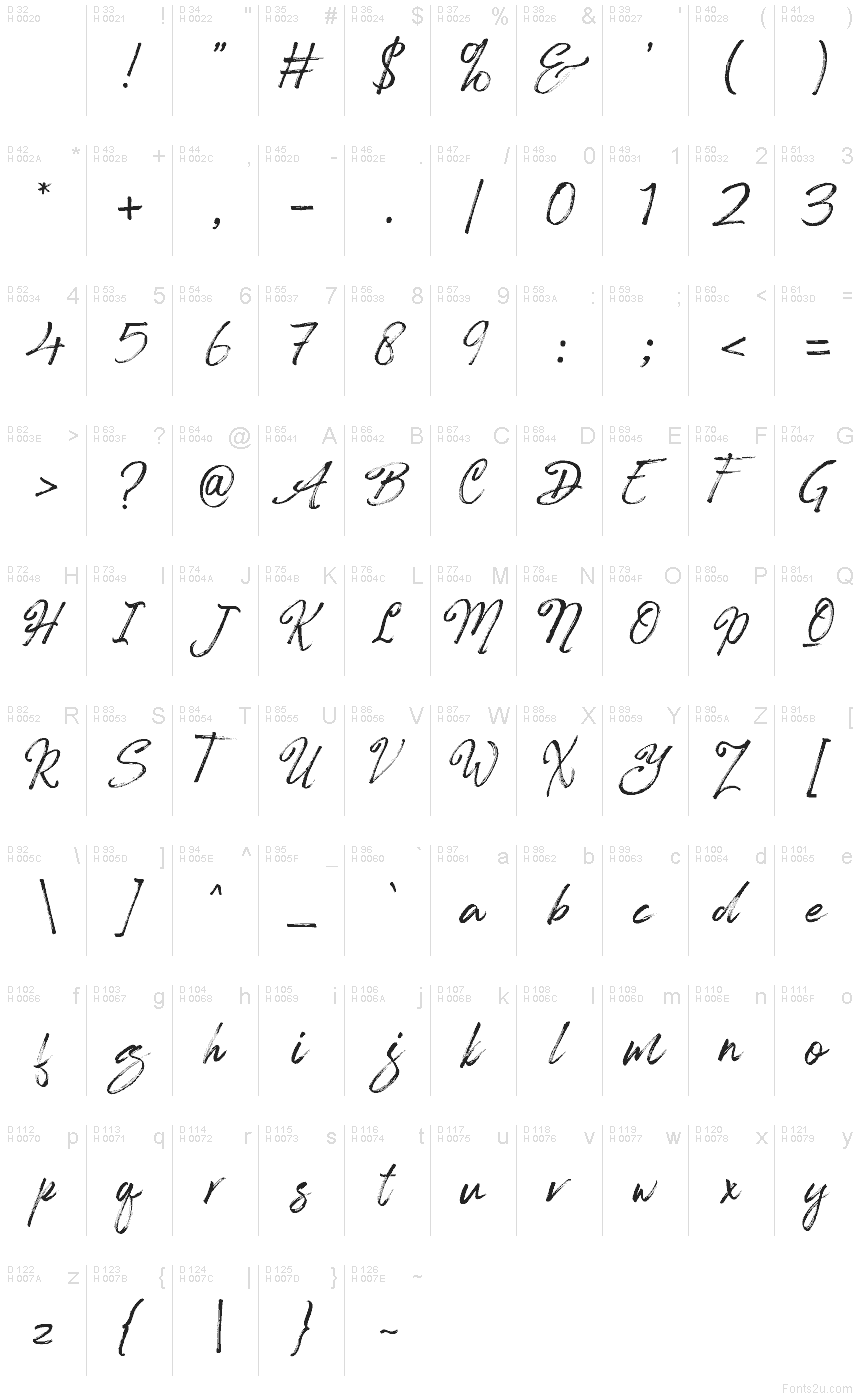
Clockbird
Clock bird font by Akbartype is a free textured brush script typeface that looks like it was dashed across the page with a dry, inky pen. Its quick, windswept slant and gritty bristle streaks give every word a lively thrum, while the narrower rhythm keeps longer lines readable. You get that hand-done warmth without sacrificing clarity, so headlines feel spontaneous yet controlled.
Using Clock bird, branding for handmade goods, coffee shop menus, event flyers, social posts, packaging, poster titles, and book covers gains instant personality and motion. The grainy strokes add tactile depth at large sizes and still hold together at subheads. For balance, pair this free font with a clean geometric sans or a quiet grotesque—let Clock bird sing in the big lines and keep body copy crisp.